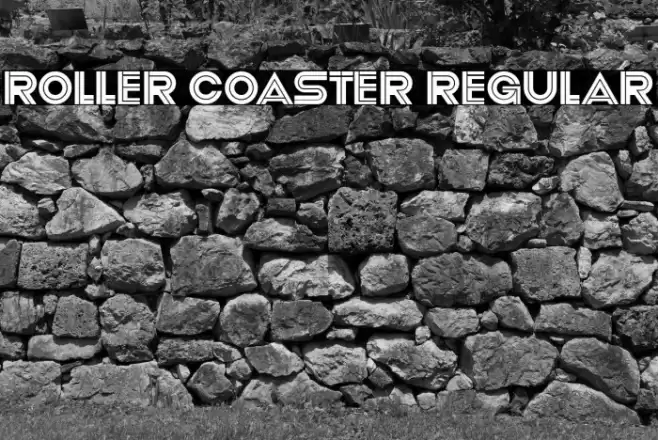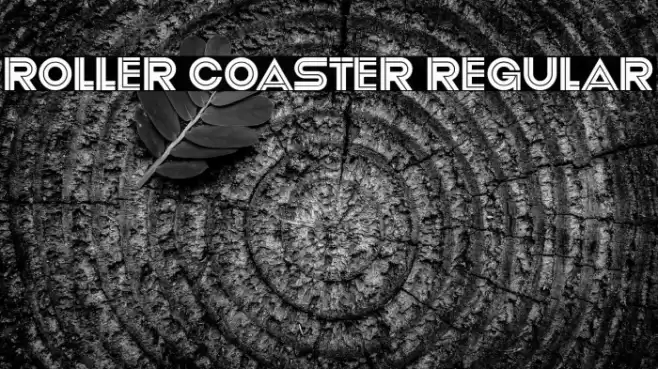
Roller Coaster Regular Font
Roller Coaster Regular Description
This font features a bold, geometric design with a distinct art deco influence. The characters are constructed with thick, parallel lines that create a sense of movement and energy, reminiscent of a roller coaster. The uppercase letters are uniform in height, with sharp angles and clean lines that give a modern and structured appearance. The font's unique style is both eye-catching and versatile, making it suitable for a variety of design applications. Its boldness and geometric precision make it ideal for creating impactful headlines and logos.
A bold, geometric font with art deco influences, perfect for striking headlines from Uncategorized fonts.
- Proposed Projects: Ideal for branding, poster design, and any project requiring a bold, modern aesthetic.